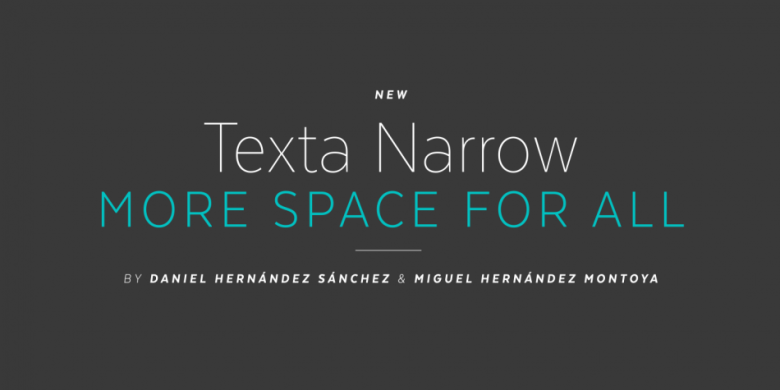
Texta Narrow Font
Texta Narrow Font Family
Through studying humanists’ models from Edward Johnston to Adrian Frutiger and the Gothic Alphabet made by sign painters comes Texta Narrow, a contemporary, rational, transparent and useful Sans to compose all kind of texts. We incorporated an Alt version that replaces lower cases like a-g-y with geometric constructions to get more versatility in neutral compositions.